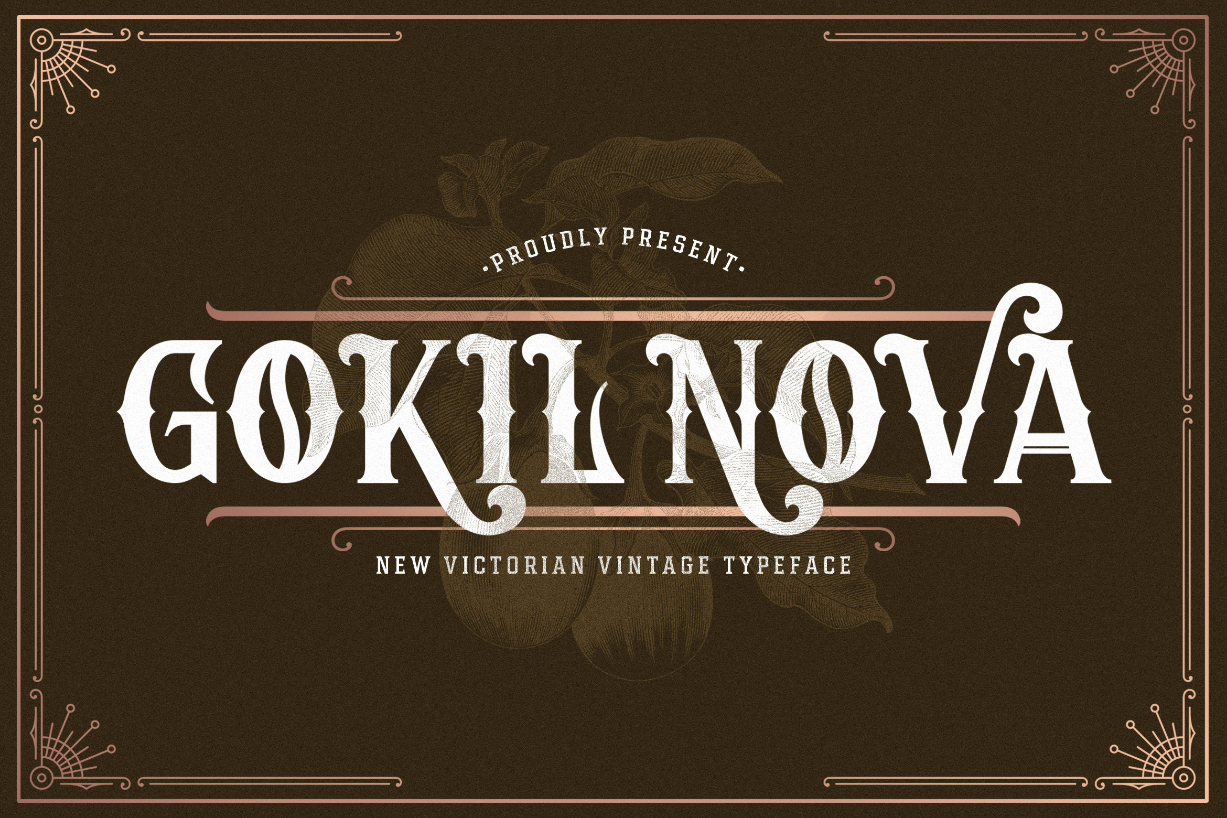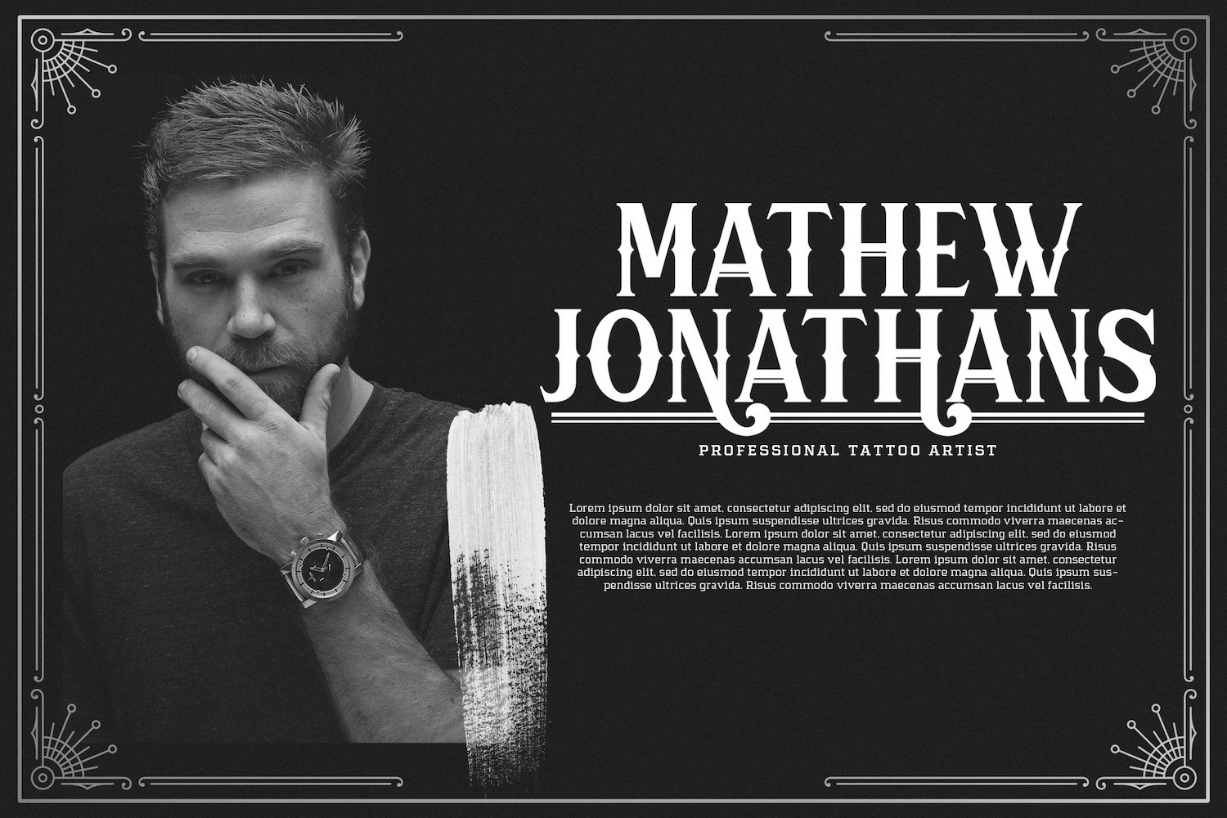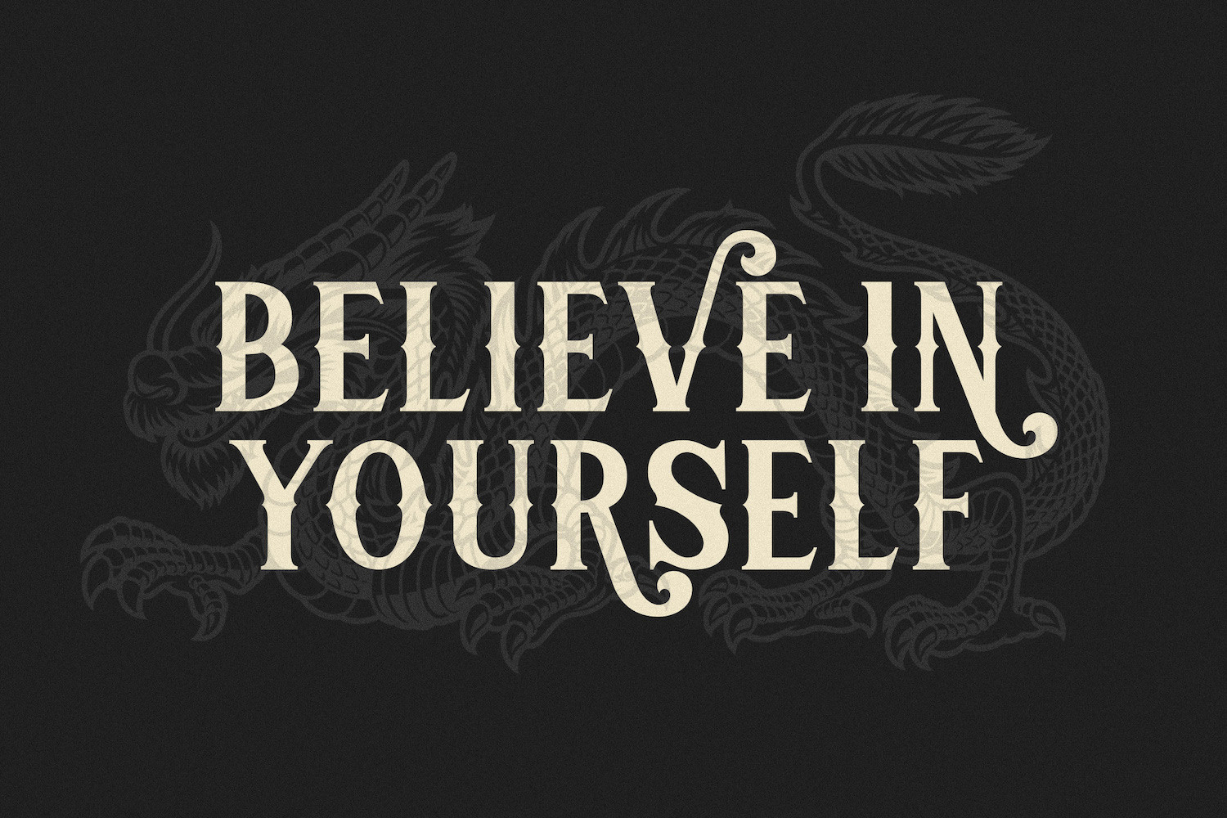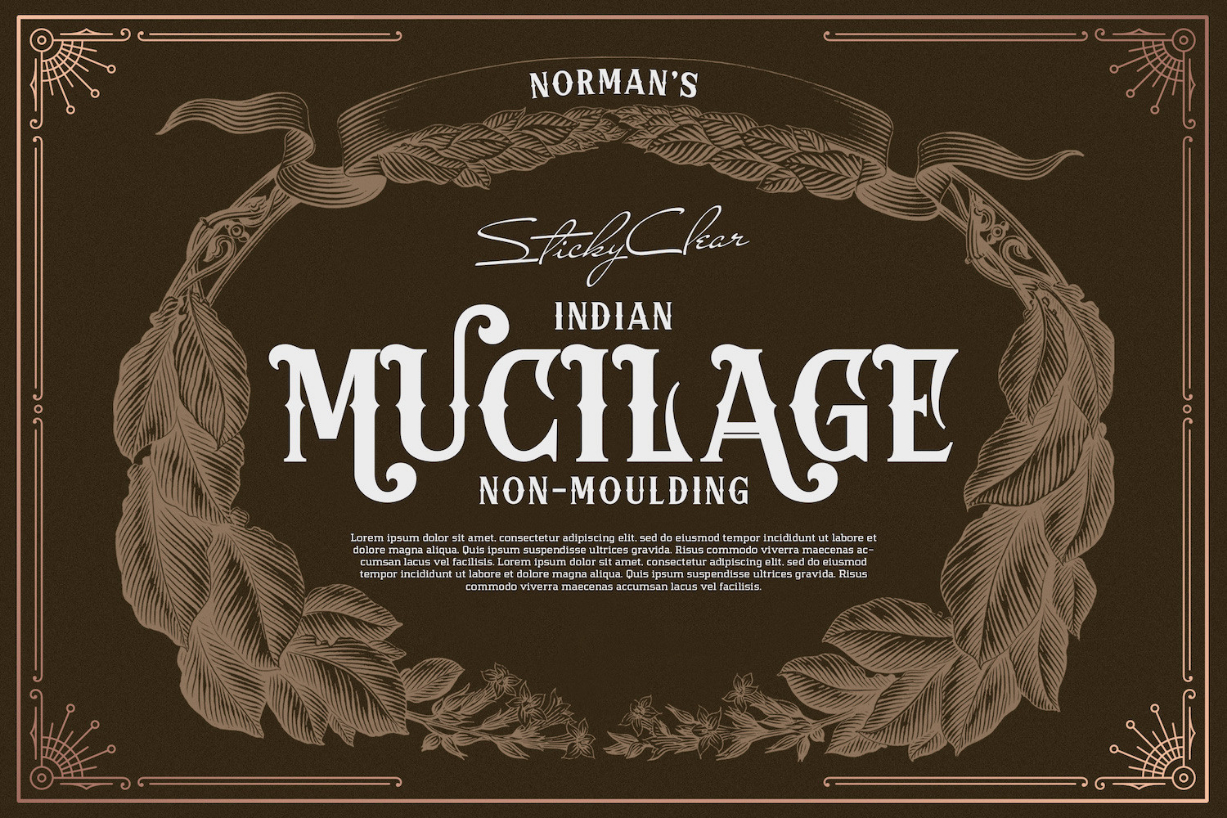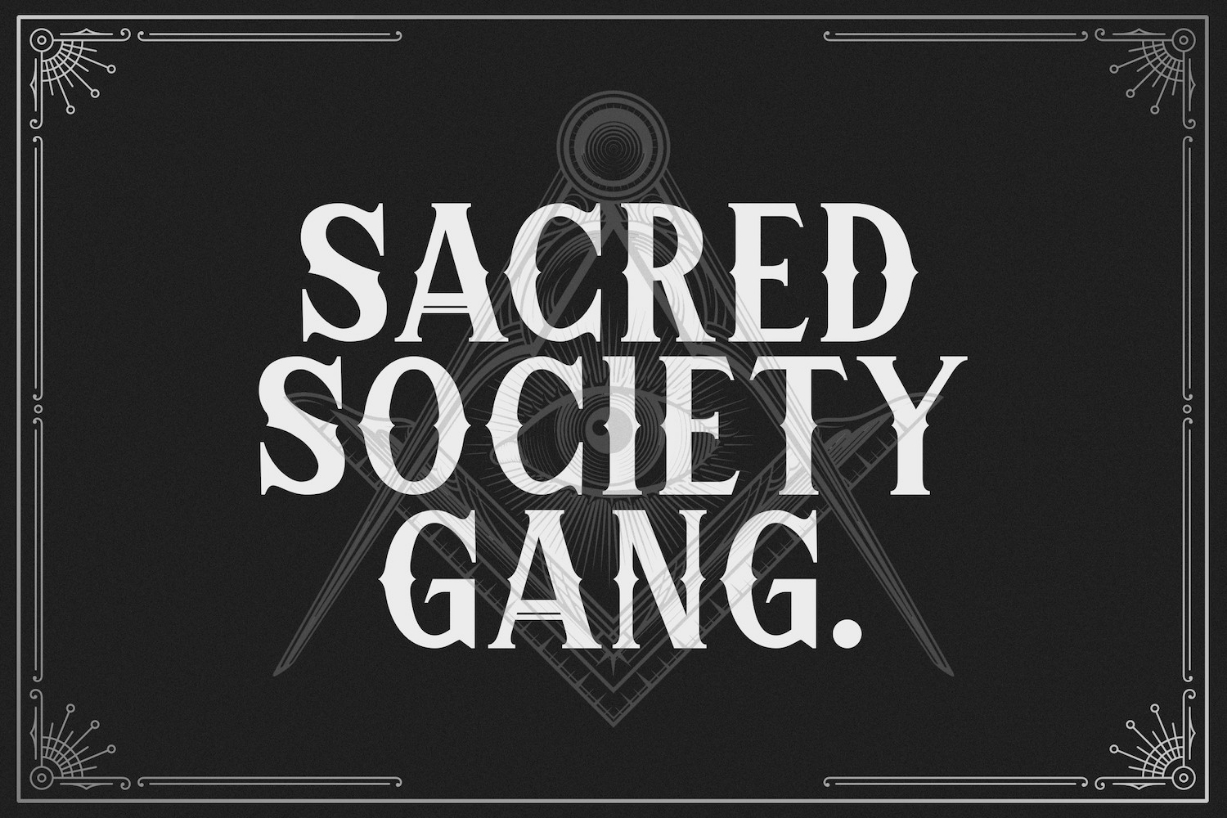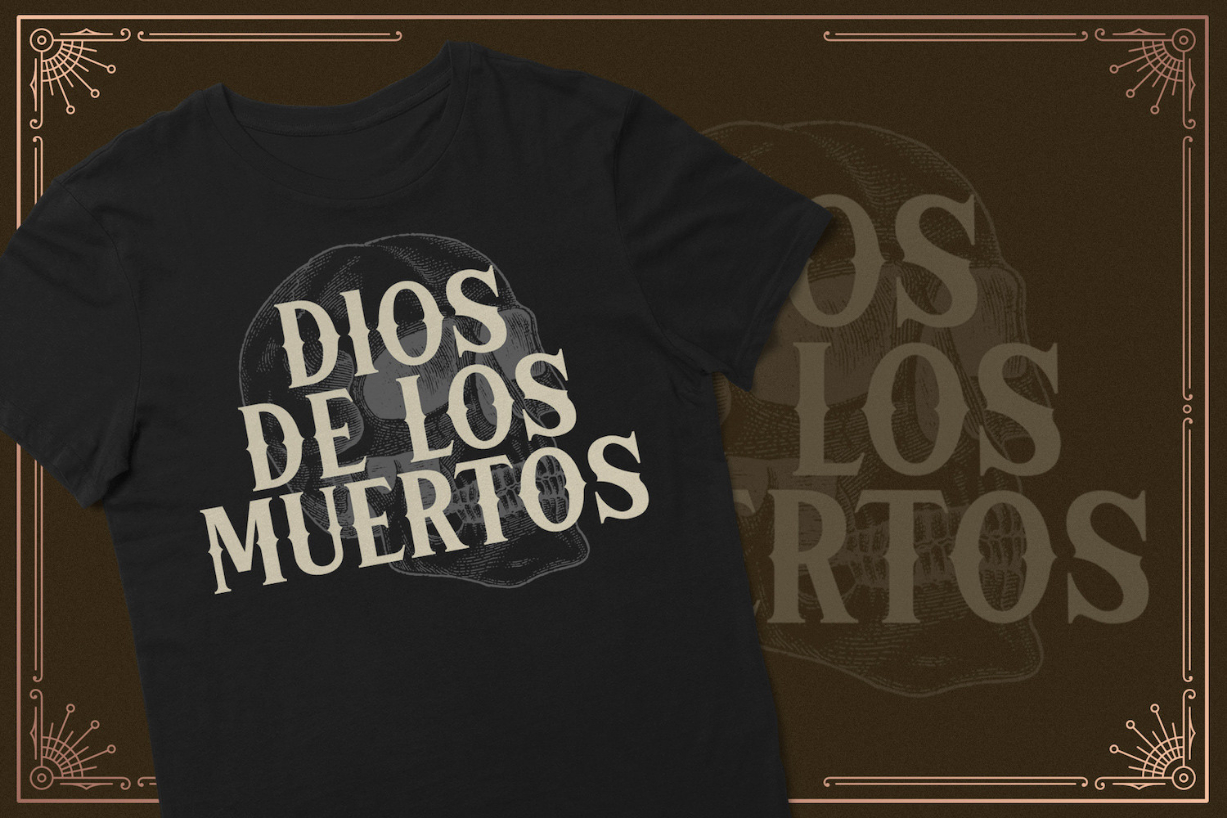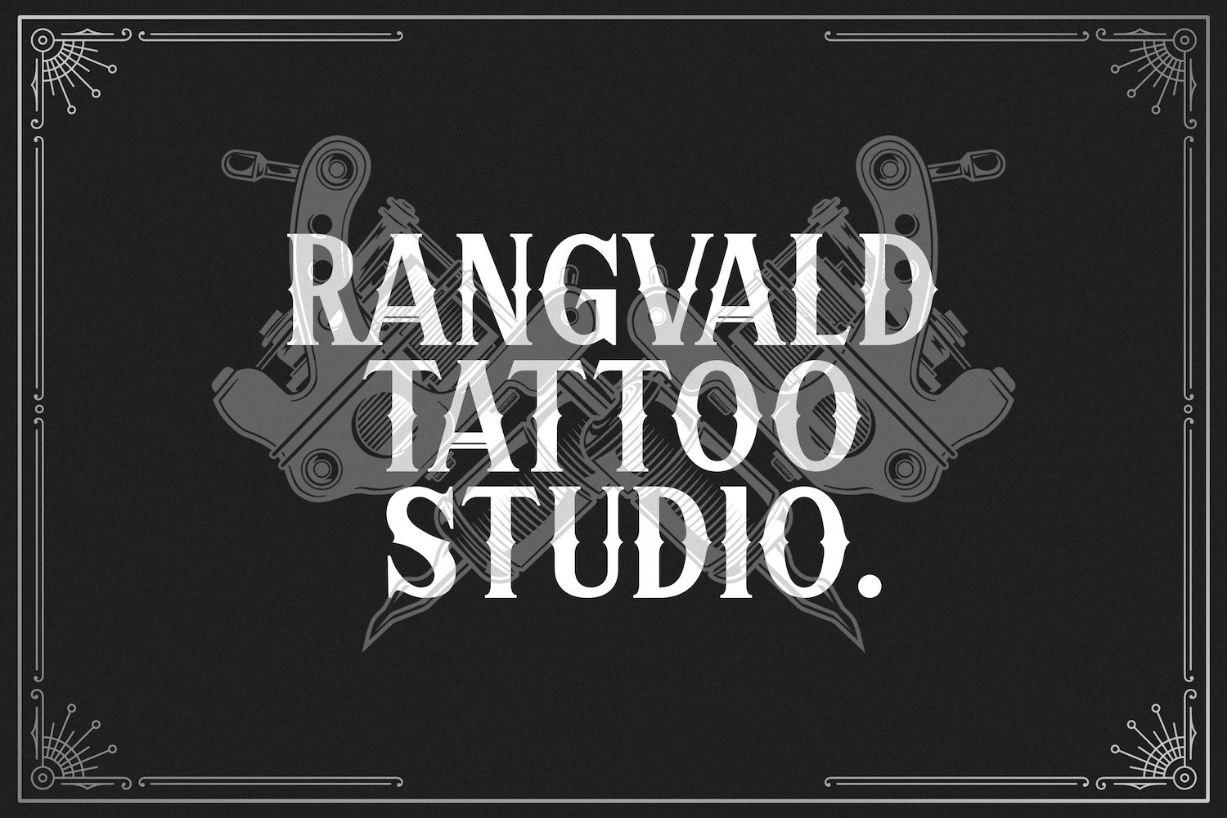
Gokil Nova Font
About Gokil Nova Font
Gokil Nova is a unique, vintage, and elegant Victorian-style blackletter font inspired by old tattoo designs. This font feels playfully nostalgic and will add an incredible vintage aesthetic to any design.